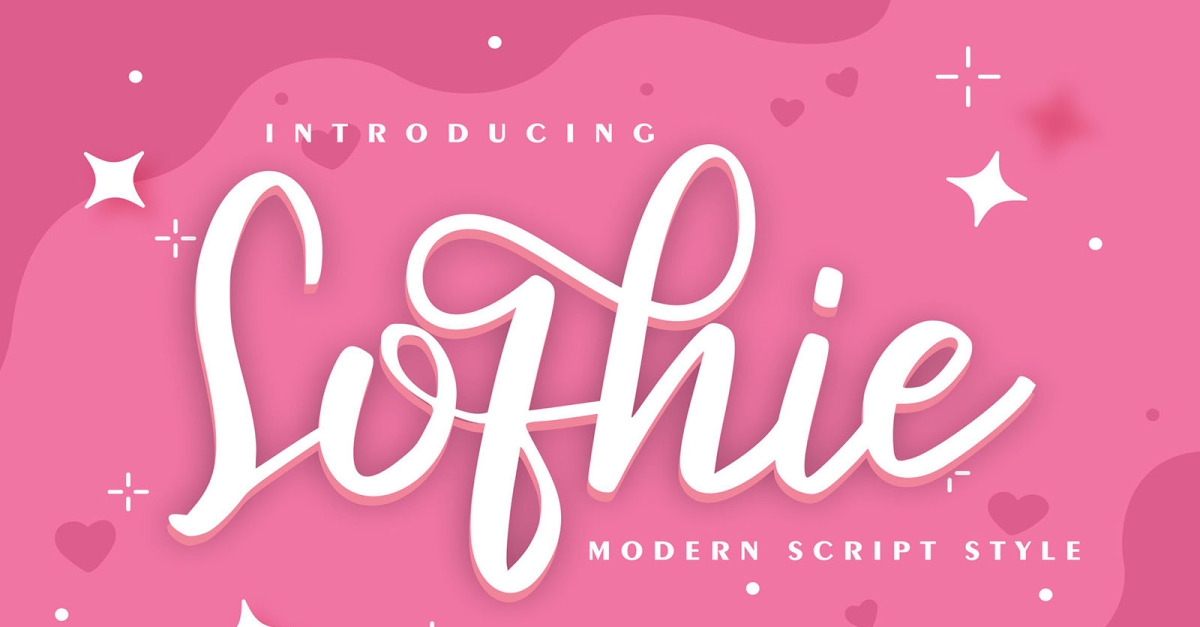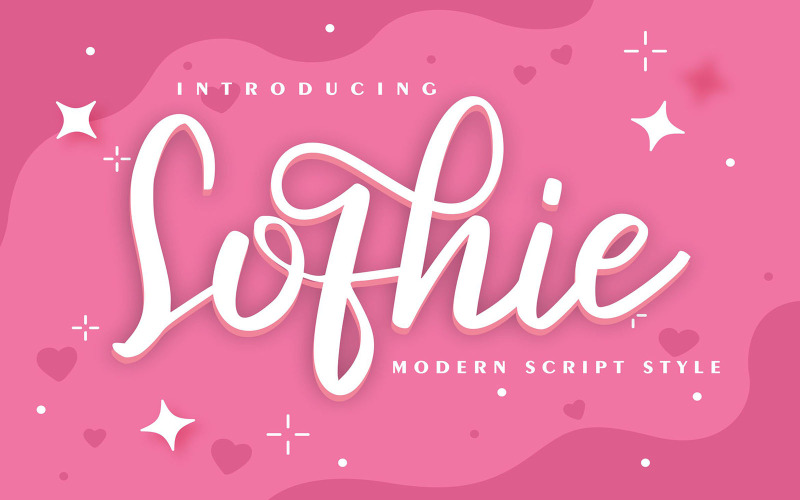
Sofhie | Modern Script Style Font
**Sofhie | Modern Script Style** with a calligraphy style, So beautiful on invitation like greeting cards, branding materials, business cards, quotes, posters, and more!